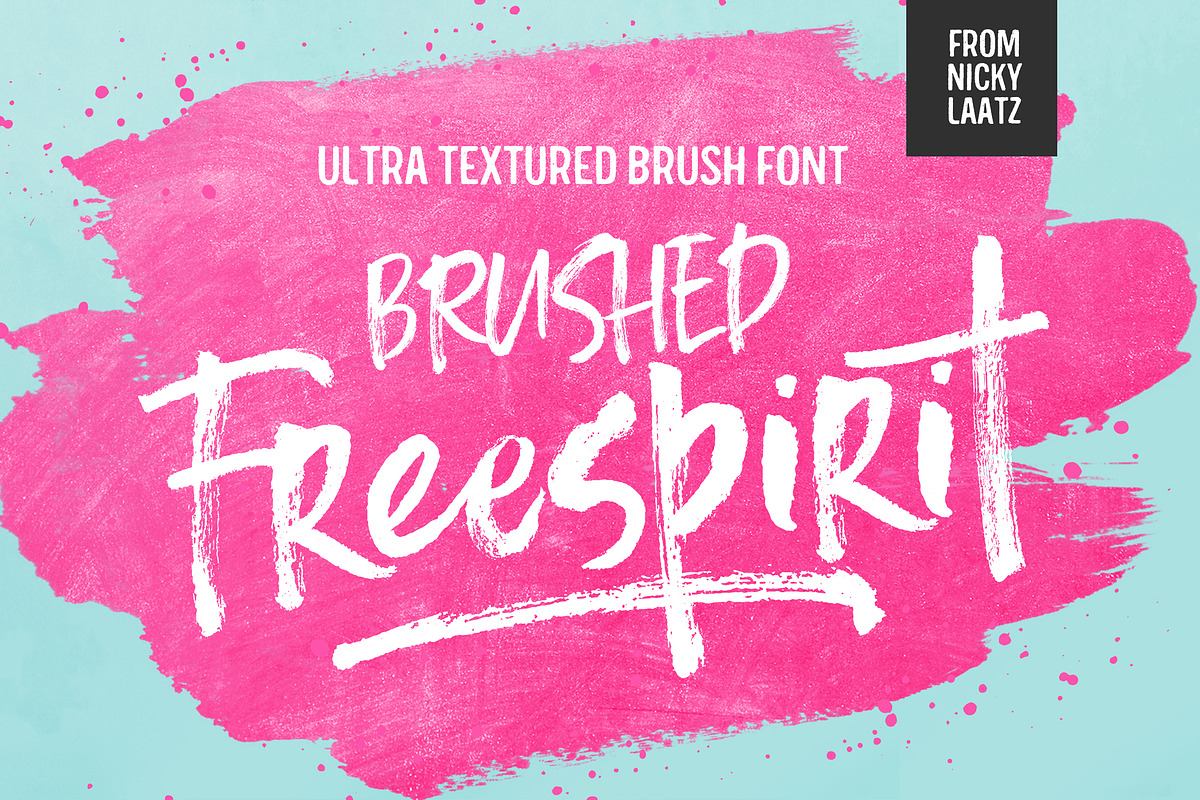
Freespirit Brush Fonts Free Download is a bold, expressive typeface that captures the raw energy of hand-painted brush strokes. With its edgy texture and wild movement, Freespirit is perfect for streetwear branding, music posters, social media graphics, event flyers, and any design that needs an urban, rebellious vibe.
Crafted to reflect the spontaneity of brush lettering, Freespirit Brush Fonts Free Download delivers a dynamic and modern aesthetic that stands out in both digital and print formats. Its rough edges and natural flow make it ideal for attention-grabbing headlines, logos, and merchandise with attitude.